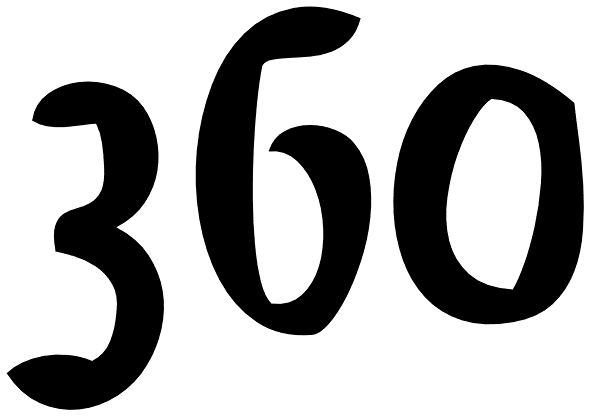
360
Distorted fonts are great but are mostly not very practical - 360 is an attempt to create a simple distorted font that can be used far beyond a few logos or headlines. Each 360 character averages roughly half the number of sharp angles of a regular...